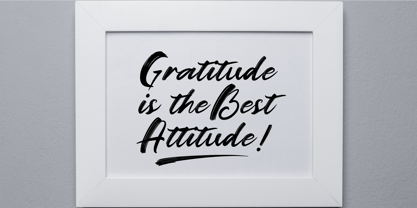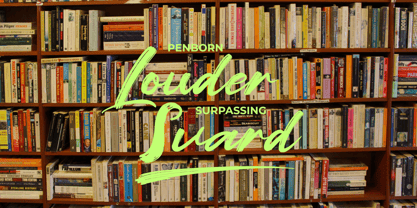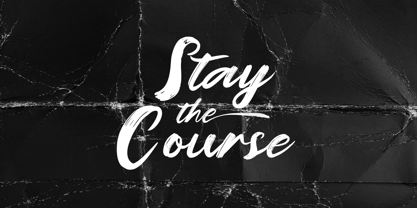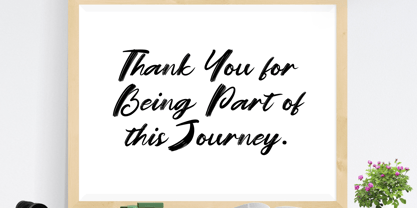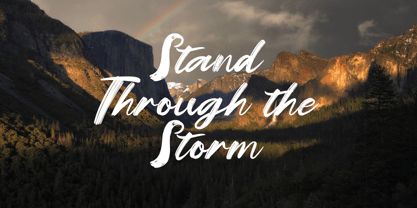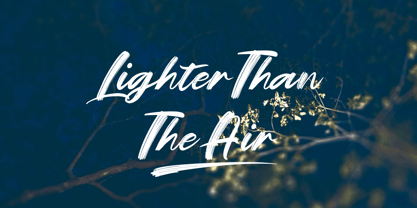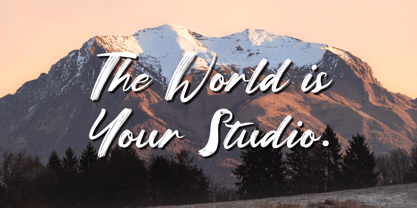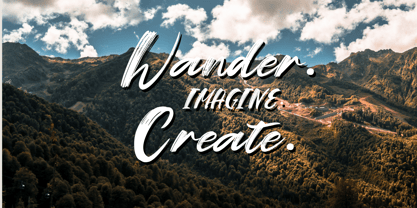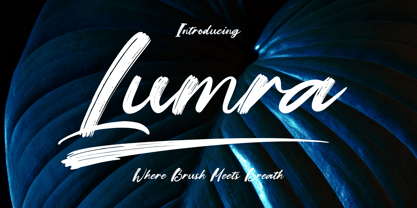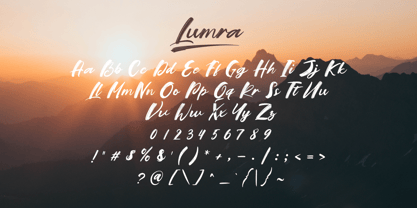
Lumra
by Gatype
The Lumra Font Family was designed by khaidir and published by Gatype. Lumra contains 1 styles. More about this family
Lumra
Bring your words to life with Lumra, a bold and expressive brush script filled with energy, flow, and just the right touch of imperfection. Hand-crafted for designs that need heart, movement, and attitude.
Perfect for logos, quotes, invitations, packaging, headers, and more — Lumra gives your typography a personal, artistic edge.
Lumra Regular – Script brush font with uppercase & lowercase letters, punctuation, numerals, and multilingual support.
Design with feeling — bold or soft, wild or gentle — Lumra is your creative companion.